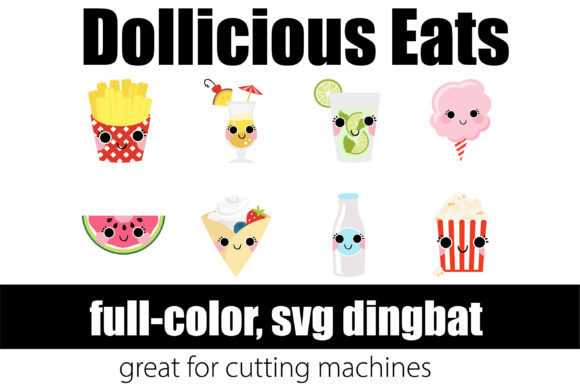
Welcome to the delectable world of Dollicious Eats Font, a feast for the eyes that will tantalize your creative taste buds. Let your imagination savor this scrumptious font family, meticulously crafted with a vibrant color palette that will transform your designs into delectable masterpieces.
Step into a culinary wonderland where fonts dance like sugarplums, each character a sweet temptation. From delectable desserts to savory snacks, Dollicious Eats Font captures the essence of gastronomic delight. Its playful and whimsical style will tickle your creative fancy, inspiring you to create designs that are as mouthwatering as they are visually stunning.
With Dollicious Eats Font, every project becomes a culinary adventure. Bring your menus, invitations, and social media posts to life with a font that exudes charm and personality. Turn your presentations into a visual feast, making your audience crave more than just the words on the page.
Let Dollicious Eats Font be your secret ingredient for creating designs that resonate with your audience. Its versatility is truly remarkable, allowing you to conjure up an array of creations that are as unique as they are captivating. From eye-catching logos to enchanting invitations, this font is the perfect garnish for your creative endeavors.
But Dollicious Eats Font is more than just a font; it's an experience. It's the joy of indulging in a sweet treat, the satisfaction of creating something truly special. Let this font ignite your passion and transport you to a world where creativity knows no bounds.